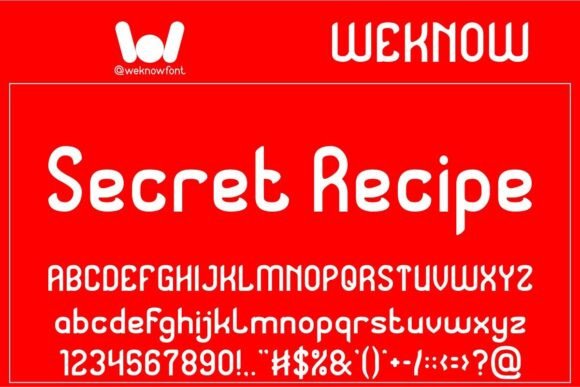
Unlock the Magic of Your Designs with the Secret Recipe Font
In the vast universe of typography, where fonts are the silent ambassadors of brand identity, there exists a typeface that not only speaks but whispers elegance, playfulness, and a dash of modernity. Welcome to the world of the Secret Recipe Font, a versatile sans serif typeface that is redefining the aesthetics of design. This article will take you on a journey to explore the multifaceted allure of the Secret Recipe Font, its applications, and how it can elevate your creative projects from ordinary to extraordinary.
The Essence of the Secret Recipe Font
The Secret Recipe Font embodies a unique blend of elegance and playfulness, a characteristic that sets it apart in the realm of typography. Its rounded, contemporary characters exude a sense of modernity and approachability, making it an ideal choice for brands aiming to convey a friendly yet sophisticated image. This sans serif typeface is not just a font; it’s an experience, a statement that communicates adaptability and creativity.
Applications Across Industries
The versatility of the Secret Recipe Font makes it a valuable asset across various industries, particularly in the fashion sector. Its distinctive display qualities make it perfect for:
- Logos and Corporate Identities: The font’s elegant and playful demeanor allows brands to stand out, conveying a sense of modernity and approachability.
- Fashion Industry: Ideal for fashion brands looking to make a statement with their typography, the Secret Recipe Font brings a touch of sophistication and glamour.
- Print and Digital Mediums: Enhance posters, music releases, video games, movies, magazines, and comic books with a splash of personality and modernity.
Elevate Your Online Presence
In the digital age, having a strong online presence is crucial. The Secret Recipe Font offers a tasteful sophistication that can amplify your brand’s visibility across various platforms:
- YouTube: Stand out in a crowded video landscape with titles and descriptions that pop.
- Instagram: Elevate your feed with stylish, eye-catching text that complements your visual content.
- Websites: Enhance your website’s typography, making it more engaging and professional.
The font’s readability and aesthetic appeal ensure that your message is conveyed effectively, engaging your audience and setting you apart from the competition.
The Secret to Making Your Designs Extraordinary
So, what makes the Secret Recipe Font a magic wand for designers and brands? It’s the ability to transform the ordinary into the extraordinary. This font doesn’t just sit in your design; it interacts, communicates, and elevates your message. Whether you’re working on a logo, a poster, or digital content, the Secret Recipe Font ensures that your design doesn’t just capture attention but also leaves a lasting impression.
Tips for Using the Secret Recipe Font
To maximize the potential of the Secret Recipe Font, consider the following tips:
- Mix and Match: Don’t be afraid to experiment with different weights and sizes to create visual hierarchy and interest.
- Pair Wisely: Combine the Secret Recipe Font with complementary fonts to enhance its features and create a balanced design.
- Consider Context: Think about where your design will be seen and adjust your font choices accordingly. The Secret Recipe Font shines in both digital and print.
The Secret Recipe Font is more than just a typeface; it’s a design companion that can elevate your projects, making them more engaging, sophisticated, and memorable. Its unique blend of elegance and playfulness, coupled with its versatility, makes it an invaluable asset for designers and brands looking to make a statement. Whether you’re aiming to revamp your brand identity, create captivating marketing materials, or simply enhance your online presence, the Secret Recipe Font is your secret ingredient to success.